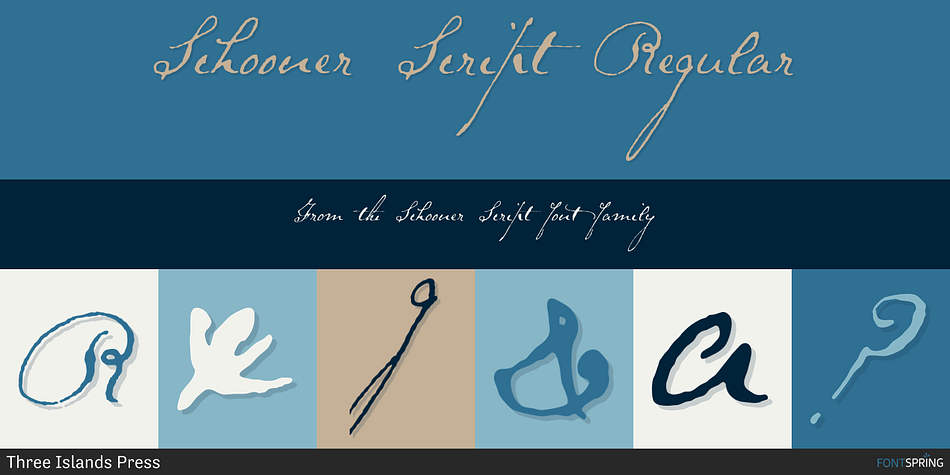
Schooner Script Regular
Schooner Script is a historical and script font published by Three Islands Press.
I happened to mention to the proprietor of an antiques barn near here one day that I’d be interested in any old typewriters she might happen to come across.
I happened to mention to the proprietor of an antiques barn near here one day that I’d be interested in any old typewriters she might happen to come across. A conversation ensued, the proprietor withdrew into a back room, and she re-emerged with an old handwritten letter, dated 18 Sept. 1825 and spanning nearly three pages. The letter—penned by Samuel Clarke, a Princeton, Massachusetts, pastor—sought donations for the victims of an accident at sea. Clarke’s curls and loops and long descenders seemed to typify the neat, distinctive penmanship of the period. Schooner Script has a single, medium weight; OpenType features include many standard and discretionary ligatures, true fractions, lining and tabular figures, and support for Central and Eastern European languages.